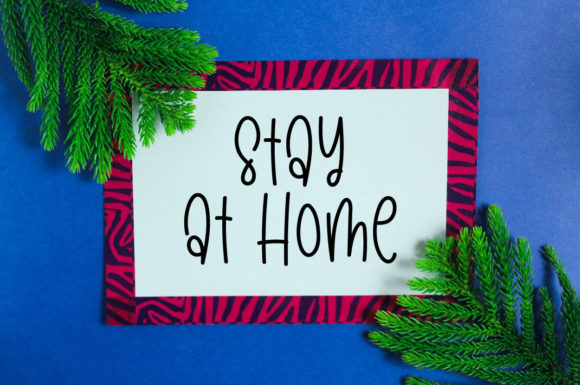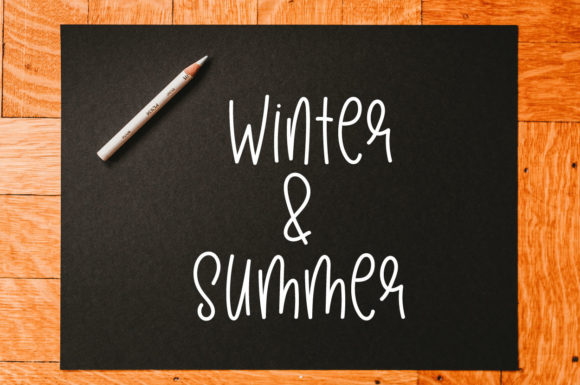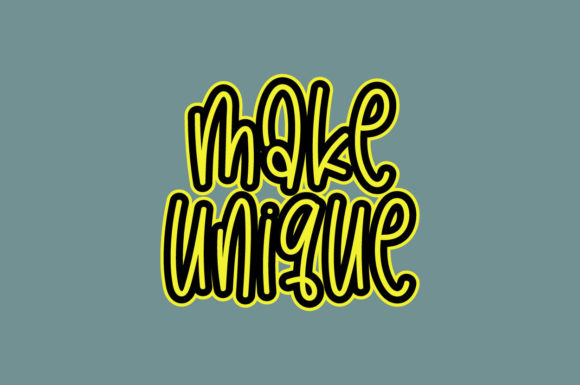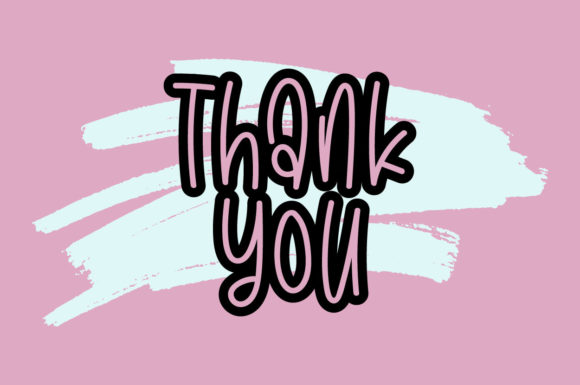
Unleash Your Creativity with Beautiful Creative Font
Have you ever sat at your desk, staring at a blank canvas, trying to come up with the perfect idea? The blank page can be intimidating, but it’s in those moments of creative struggle that we find our most innovative solutions. For designers, the spark of inspiration can come from anywhere, and Beautiful Creative Font is here to ignite that spark.
Beautiful Creative Font is a fun, quirky, and asymmetrical handwritten font designed to add a touch of magic to your creations. Whether you’re designing a logo, a brochure, or a social media post, this font will bring a sense of whimsy and personality to your work. With its unique style, Beautiful Creative Font is a valuable tool for designers looking to add a little extra flair to their projects.
Beautiful Creative Font Key Features
- Font Family: Beautiful Creative Font is a unique, high-quality font family that includes 6 styles: Thin, Light, Regular, Medium, Bold, and Black.
- Unique Characteristics: The font features a mix of modern and elegant design elements, with subtle flair and sophistication. It includes a wide range of glyphs, including international characters and symbols.
Beautiful Creative Font Review
Overall, I think the Beautiful Creative Font is a solid choice for designers looking for a unique and eye-catching font. ✨ The font’s bold and playful style makes it perfect for headings and titles, and the wide range of weights and styles available means you can customize it to fit your design needs.
The font’s versatility is one of its strongest points, and it works well in a variety of contexts, from modern websites to traditional print materials. ✨ The font’s ligatures and swashes add a touch of elegance and sophistication, making it a great choice for high-end designs.
However, I do have a few criticisms. ⚠️ The font’s readability can be an issue at smaller font sizes, and the weight of some of the styles can feel a bit inconsistent. Additionally, the font’s complexity can make it difficult to pair with other fonts, which may limit its versatility in certain designs.
Pros and Cons
- Unique and eye-catching style
- Wide range of weights and styles available
- Works well in a variety of contexts
- Ligatures and swashes add elegance and sophistication
- Readability can be an issue at smaller font sizes
- Weight of some styles can feel inconsistent
- Can be difficult to pair with other fonts
Use Beautiful Creative Font for:
Titles, headings, and body text in creative projects, such as brochures, flyers, and posters.
Creating unique and eye-catching text effects in designs.
Adding a touch of elegance and sophistication to your presentations and documents.